Top 10 Typography Trends for 2026: From Y2K to AI
Typography is no longer just a vehicle for information—it is the hero of the digital narrative. In 2026, we are witnessing a radical shift where human imperfection meets algorithmic precision.
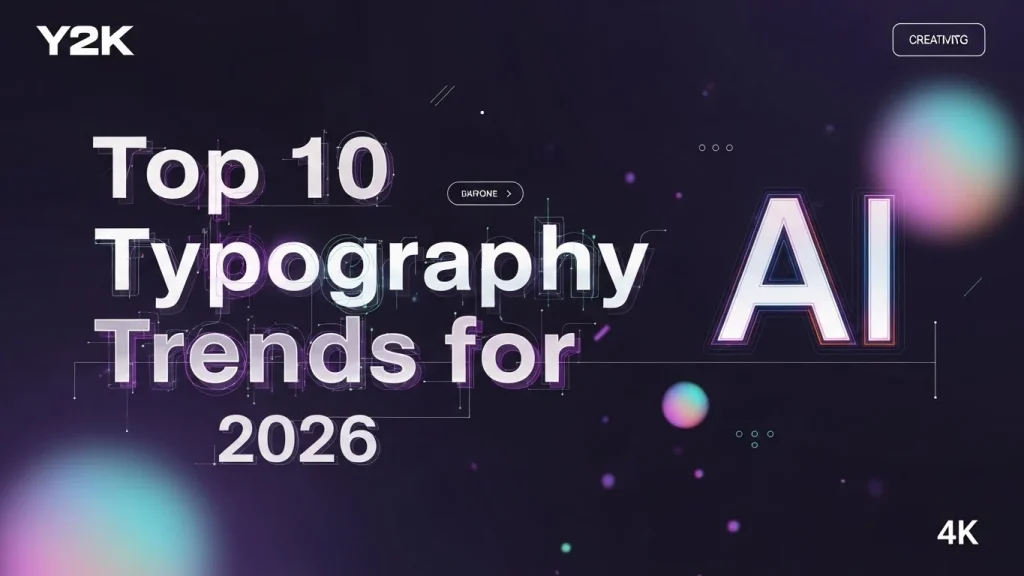
The Cultural Shift: Why Typography Trends 2026 Matter
As we move deeper into the decade, the design world is grappling with a paradox. We have access to more powerful generative tools than ever before, yet our cravings for “realness” have never been stronger. This tension is the primary driver of **Typography Trends 2026**.
From a marketing perspective, typography has become the most cost-effective way to signal brand values. A “Liquid AI” font instantly tells your customer you are at the bleeding edge of tech, while a “Human Serif” signals trustworthiness and heritage. In 2026, the brands that win aren’t the ones with the cleanest fonts, but the ones with the most distinctive ones.01
AI-Generated “Liquid” Type
We are entering the era of “living” letterforms. AI is now capable of generating typography that looks like shifting mercury, melting glass, or bio-luminescent organisms. These aren’t just static images; they are designed to be animated.
— The Future of Motion02
Y2K Retro-Futurism 2.0
The Y2K aesthetic has matured. In 2026, it’s less about “tacky” 2000s vibes and more about “Frutiger Aero” and high-gloss textures. Think chunky, rounded fonts with metallic finishes and iridescent gradients.
— Optimistic Nostalgia03
“Imperfect” Human Serifs
As a direct rebellion against the “too-perfect” nature of AI, designers are leaning into intentional flaws. We see serifs with wobbly strokes, ink-bleed effects, and asymmetrical characters that feel hand-set.
— Artisanal Authenticity04
Variable Responsive Type
Technical SEO meets design. Variable fonts allow a single file to hold infinite weights. In 2026, typography will automatically “breathe” based on scroll speed or user device.
— Technical Excellence05
Soft Brutalism
Brutalism has lost its sharp edges. The 2026 version uses massive block letters but rounds them off and pairs them with “dopamine colors”—bright pinks and soft purples.
— Bold Friendliness06
The Pixel-Art Revival
Driven by “Lo-fi” culture and “vibe coding,” pixel fonts are making a return to high-end branding. It’s a statement of “digital-native” identity and raw authenticity.
— Digital Heritage
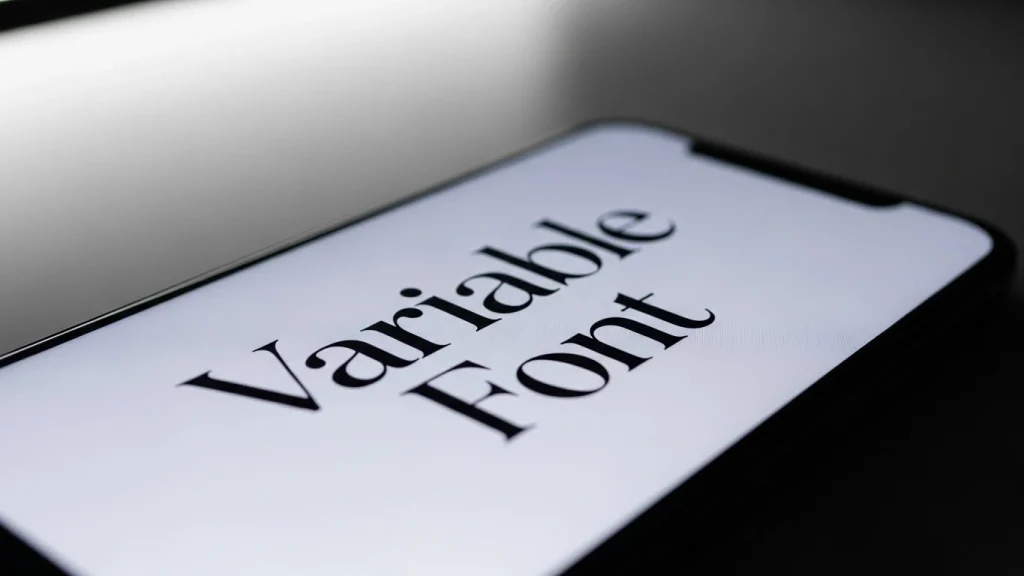
Eco-Organic Fluidity
Typography that mimics nature. We are seeing scripts that look like vines or flowing water, often paired with earthy palettes and sustainability-focused messaging.
— Sustainable Form08
Maximalist Overlap
Legibility is taking a backseat to expression. This trend features letters that stack and obscure one another, creating a “text-as-art” effect that demands focus.
— Visual Intensity09
Holographic 3D Space
With spatial computing becoming mainstream, typography is gaining literal depth. Holographic textures that shift color are the new standard for luxury tech.
— Immersive UX10
Minimalist “Quiet” Sans
The “Quiet Luxury” of typography. These are ultra-refined, thin sans-serifs with massive spacing. It exudes wealth and calm without needing to scream.
— Refined Silence
When applying these **Typography Trends 2026**, always prioritize readability on mobile devices. A trend like “Maximalist Overlap” might look great on a 27-inch iMac but can be a nightmare on a smartphone. The key is to use decorative trends for headlines and “Quiet Sans” or “Variable Fonts” for body text to ensure a smooth user journey.
Frequently Asked Questions
Q: What is the most popular typography trend for 2026?
A: The most influential trend is AI-Generated Liquid Type, as it represents the first major departure from traditional font design tools into generative systems.
Q: How does typography affect SEO in 2026?+
The Future is Typographic
As we’ve seen, **Typography Trends 2026** are defined by the balance between AI innovation and human artisanal spirit. The goal remains to create a visual voice that resonates emotionally and performs technically.